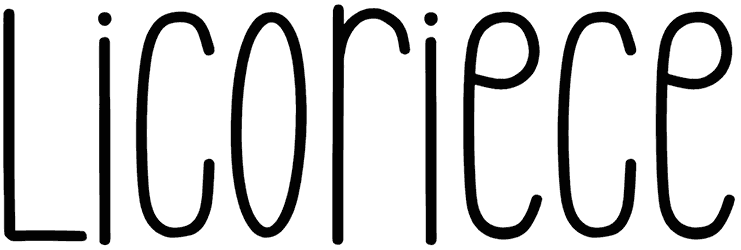
Licoriece Font
Licoriece is an artistic font that evokes the joy of summer camping in the forest and the cool feeling. This playful font‘s long and elongated characters are suitable for creating a timeless design and can be used for out-of-the-box designs.